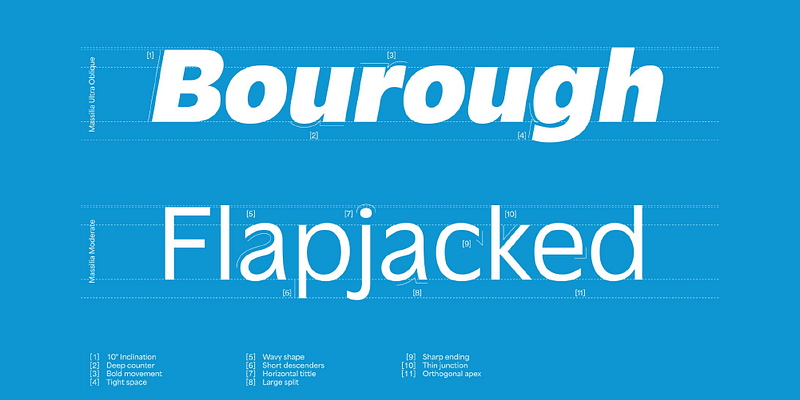
Massilia is a tribute to Marseille. This family is inspired by both Roger Excoffon’s famous work and the city itself, balancing brush-like features and geometric endings. Massilia’s overall design brings a perfect rhythm to text layouts, while its glyphs’ striking anatomy shines in display uses. It is surprisingly soft and delicate when used in lighter weights, smaller sizes, and long text layouts.